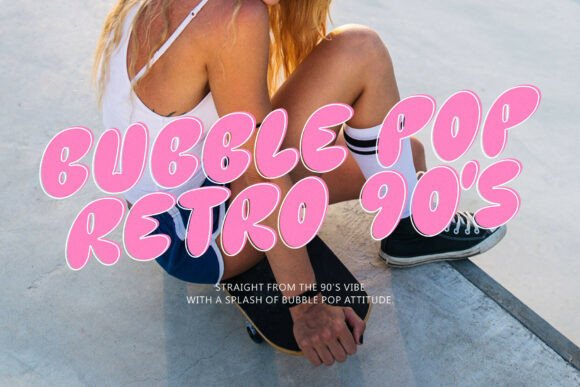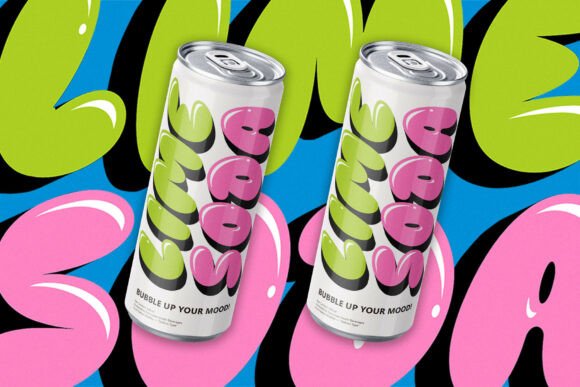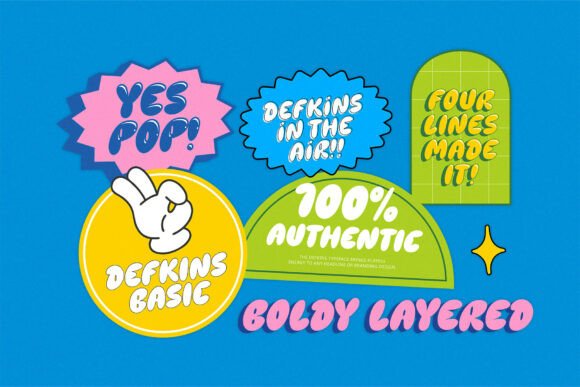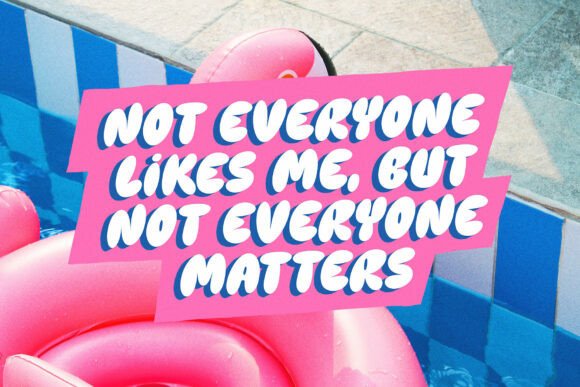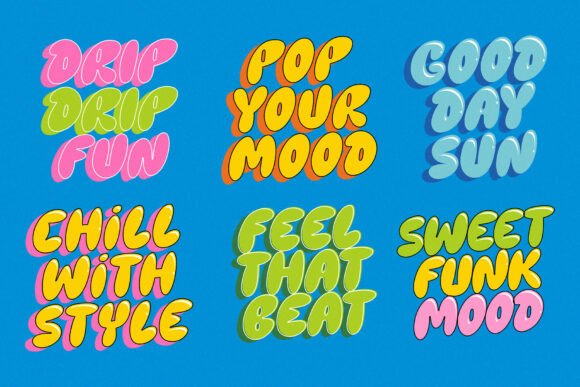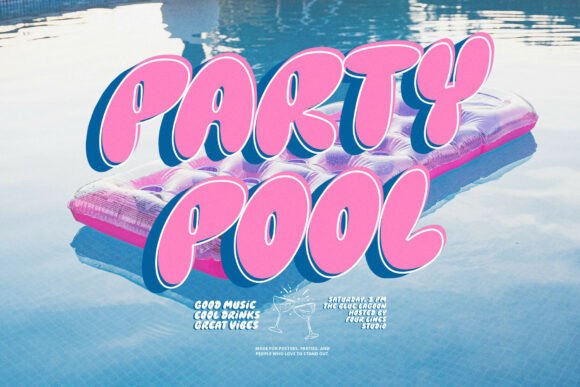
Introducing Defkins Display Moods Font: The Ultimate Choice for Fun and Playful Designs
Are you tired of using the same old fonts for your designs? Look no further than Defkins Display Moods, a bold, bubbly, and playful font that’s bursting with energy. This exciting new font is perfect for designers and crafters who want to add a touch of fun and whimsy to their work. With its rounded, glossy shapes and cartoon-inspired flair, Defkins Display Moods is sure to make your designs stand out from the crowd.
What Makes Defkins Display Moods So Special?
Defkins Display Moods is a one-of-a-kind font that’s specifically designed to bring joy and character to your designs. Its unique blend of rounded shapes and glossy textures gives it a playful, bubbly feel that’s perfect for a wide range of applications. Whether you’re designing for a kids’ brand, creating party invites, or developing eye-catching branding, Defkins Display Moods is the perfect choice.
Perfect for Children’s Books and Toy Packaging
Defkins Display Moods is a natural fit for children’s books and toy packaging. Its fun, playful vibe is sure to appeal to kids and parents alike, making it the perfect choice for designers who want to create engaging and imaginative designs. With Defkins, you can add a touch of magic to your designs and bring your characters to life.
Eye-Catching Branding and Party Invites
But Defkins Display Moods isn’t just limited to children’s books and toy packaging. Its bold, cheerful vibe makes it perfect for eye-catching branding and party invites. Whether you’re designing for a birthday party, a special event, or a brand launch, Defkins is sure to make your designs stand out. Its playful, bubbly texture adds a touch of excitement and energy to any design, making it impossible to ignore.
Key Features of Defkins Display Moods
- Bold and Playful: Defkins Display Moods is a bold, bubbly font that’s bursting with energy and playfulness.
- Rounded and Glossy: Its rounded, glossy shapes give it a unique, cartoon-inspired flair that’s perfect for fun and imaginative designs.
- Cartoon-Inspired: Defkins Display Moods has a distinctly cartoon-inspired vibe that’s perfect for kids’ brands, party invites, and playful designs.
- Full of Character: This font family is full of joy and character, making it perfect for designs that need to feel fun, cheerful, and unforgettable.
Why Choose Defkins Display Moods?
So why choose Defkins Display Moods for your next design project? Here are just a few reasons:
- Adds a Touch of Fun: Defkins Display Moods adds a touch of fun and whimsy to any design, making it perfect for designers who want to create playful and imaginative designs.
- Perfect for Kids’ Brands: Its playful, bubbly vibe makes it a natural fit for kids’ brands and children’s products.
- Eye-Catching: Defkins Display Moods is sure to make your designs stand out from the crowd, whether you’re designing for a brand launch, party invite, or special event.
In conclusion, Defkins Display Moods is a bold, bubbly, and playful font that’s perfect for designers and crafters who want to add a touch of fun and whimsy to their work. With its rounded, glossy shapes and cartoon-inspired flair, it’s ideal for children’s books, toy packaging, party invites, and eye-catching branding. Whether you’re designing for a kids’ brand or creating standout titles, Defkins brings the pop and is sure to make your designs unforgettable.
Get Ready to Bring the Fun with Defkins Display Moods!